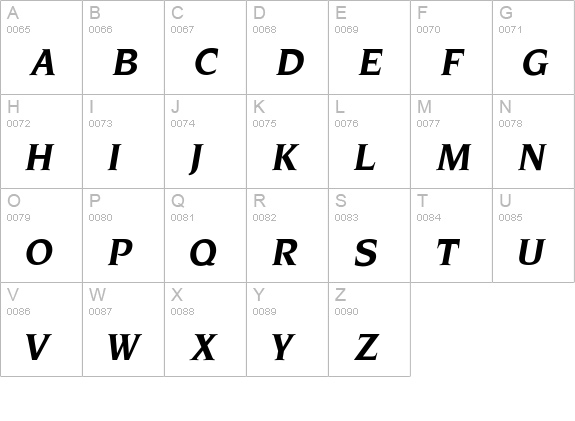
Pinnerese-BoldItalic Font Details
Pinnerese-BoldItalic is a stunning and eye-catching font that exudes elegance and sophistication. Its bold and italicized design adds a touch of uniqueness and flair to any project or design. The combination of sharp lines and graceful curves create a harmonious balance, making Pinnerese-BoldItalic the perfect choice for those seeking a font that stands out from the crowd. The versatility of Pinnerese-BoldItalic is unparalleled, making it suitable for a wide range of applications. From luxurious branding and logo designs to editorial layouts and advertising campaigns, this font effortlessly captures attention and leaves a lasting impression. One of the most remarkable aspects of Pinnerese-BoldItalic is that it is available for free download at FontsMarket.com. This means that designers and enthusiasts alike can easily access this exceptional font without any cost. With just a few clicks, anyone can elevate their projects and unleash their creativity with the captivating allure of Pinnerese-BoldItalic. Whether you are designing a website, creating eye-catching posters, or crafting beautiful invitations, Pinnerese-BoldItalic is sure to enhance your work with its bold and stylish presence. It is the perfect choice for those who want to add a touch of sophistication and individuality to their designs. Don't miss out on the opportunity to add Pinnerese-BoldItalic to your font collection. Visit FontsMarket.com today and experience the power of this remarkable font for yourself. Free to download, Pinnerese-BoldItalic is a must-have for any designer looking to make a lasting impact.